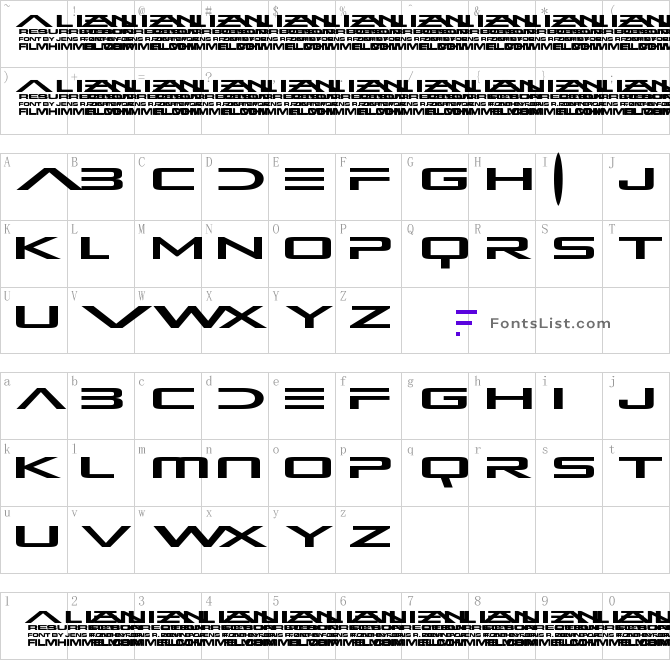
- Font Name:Alien Resurrection
Alien-Resurrection.ttf is a very beautiful artistic font, Alien-Resurrection.ttf is widely used in the design and printing of various books and pictures,Alien-Resurrection.ttf has a strong visual impact,Alien-Resurrection.ttf is a commonly used font in newspapers, magazines and books, and is used in posters, e-commerce Poster design, store design, logo design, font design and other fields.Alien-Resurrection.